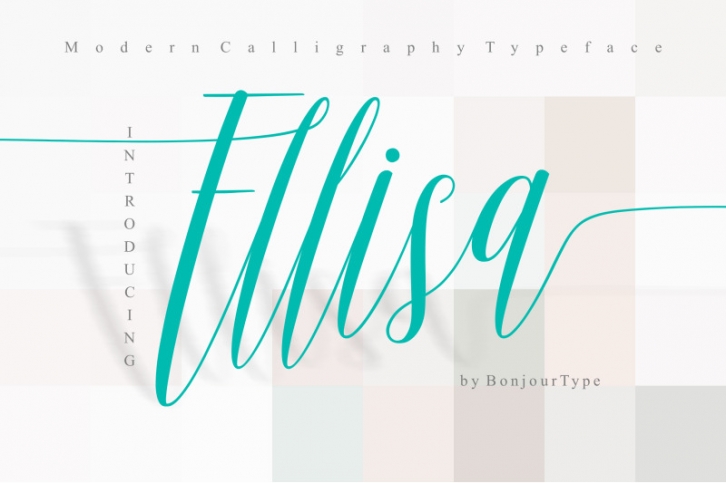
Ellisa Script is Unique stylish modern calligraphy fonts, combines from copperplate to contemporary typeface with a dancing baseline, modern and elegant touch.Can be used for various purposes. Such as headings, signature, logos, wedding invitation, letterhead, signage, label, news, posters, badges etc.
Ellisa Script features 309 glyphs and more alternate characters. Including initial and terminal letters, alternates, ligatures and multiple language support.Files included: